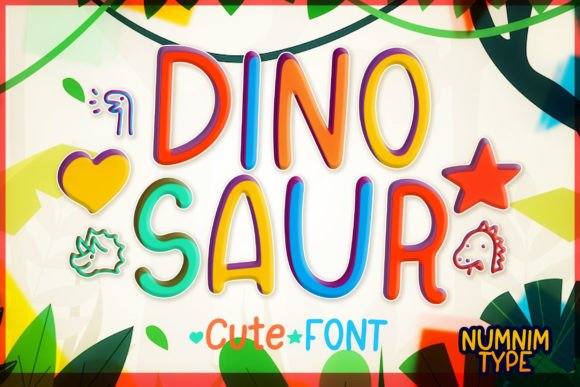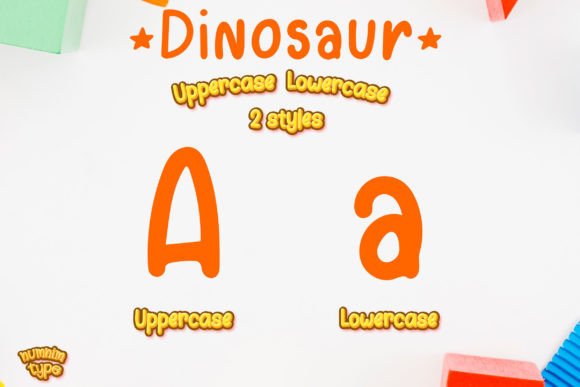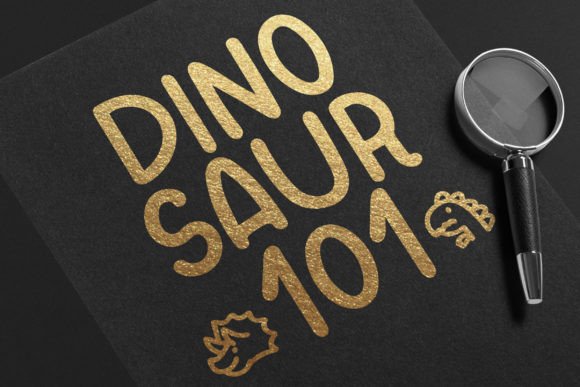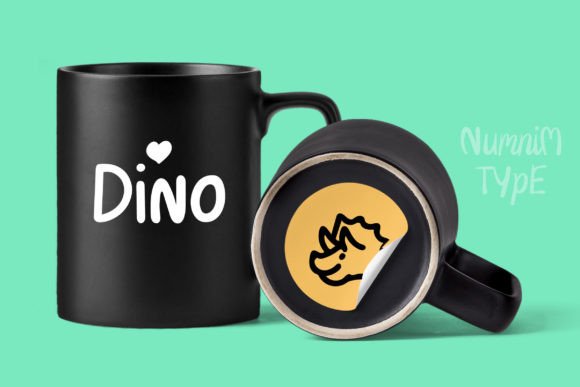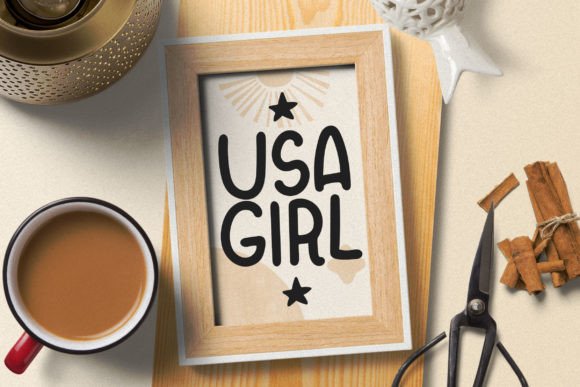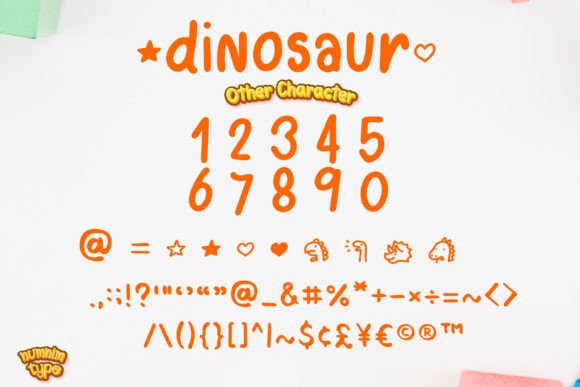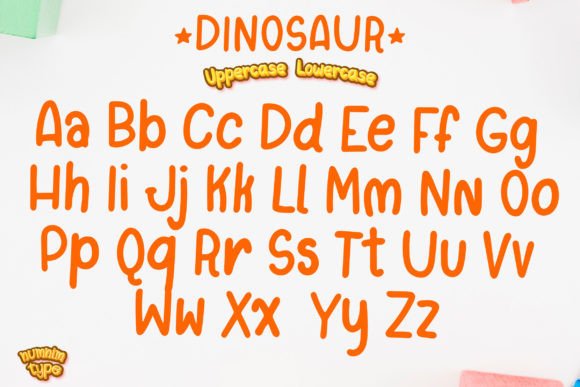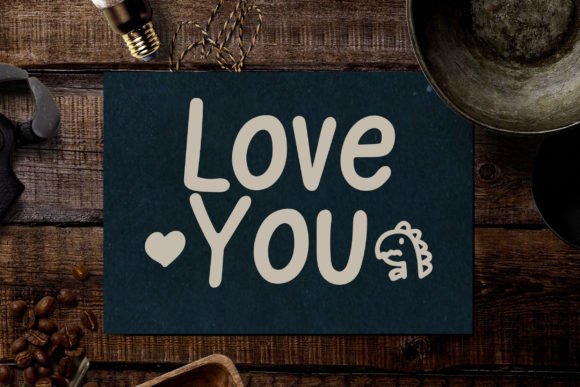
Dinosaur Font
About Dinosaur Font
Enter the enchanting world of Dinosaur – a cute and uniquely crafted handwritten font designed to infuse fun and playfulness into your creative projects. With its whimsical characters, Dinosaur is the ideal font for a range of applications, from stickers and mugs to t-shirts, ornaments, Dino-themed kids’ event cards, and beyond!
The charm of Dinosaur lies in its ability to transport your designs into a world of imagination and joy. The playful characters capture the essence of childhood, making it a perfect choice for projects aimed at kids or those who appreciate a touch of whimsy. Whether you’re creating merchandise, designing event materials, or simply looking to add a dose of adorable to your creations, Dinosaur is your go-to font.
Imagine Dinosaur on stickers, bringing a smile to everyone who encounters them. Picture it on mugs, adding a playful touch to morning routines. Envision it on t-shirts, becoming a wearable expression of whimsy. Dinosaur is versatile, adapting seamlessly to various mediums to bring your ideas to life.
Dinosaur isn’t just a font; it’s a gateway to a world of creativity and imagination. It’s the font that turns ordinary projects into extraordinary expressions of joy. With Dinosaur, your designs become a playground where every character is an opportunity to evoke smiles and capture hearts.
In conclusion, Dinosaur is more than a font; it’s a creative companion ready to enhance your projects with cuteness and charm. Download it today and let the magic of Dinosaur transform your stickers, mugs, t-shirts, and more into delightful works of art. Embrace the playful spirit of Dinosaur and let your creativity roar!